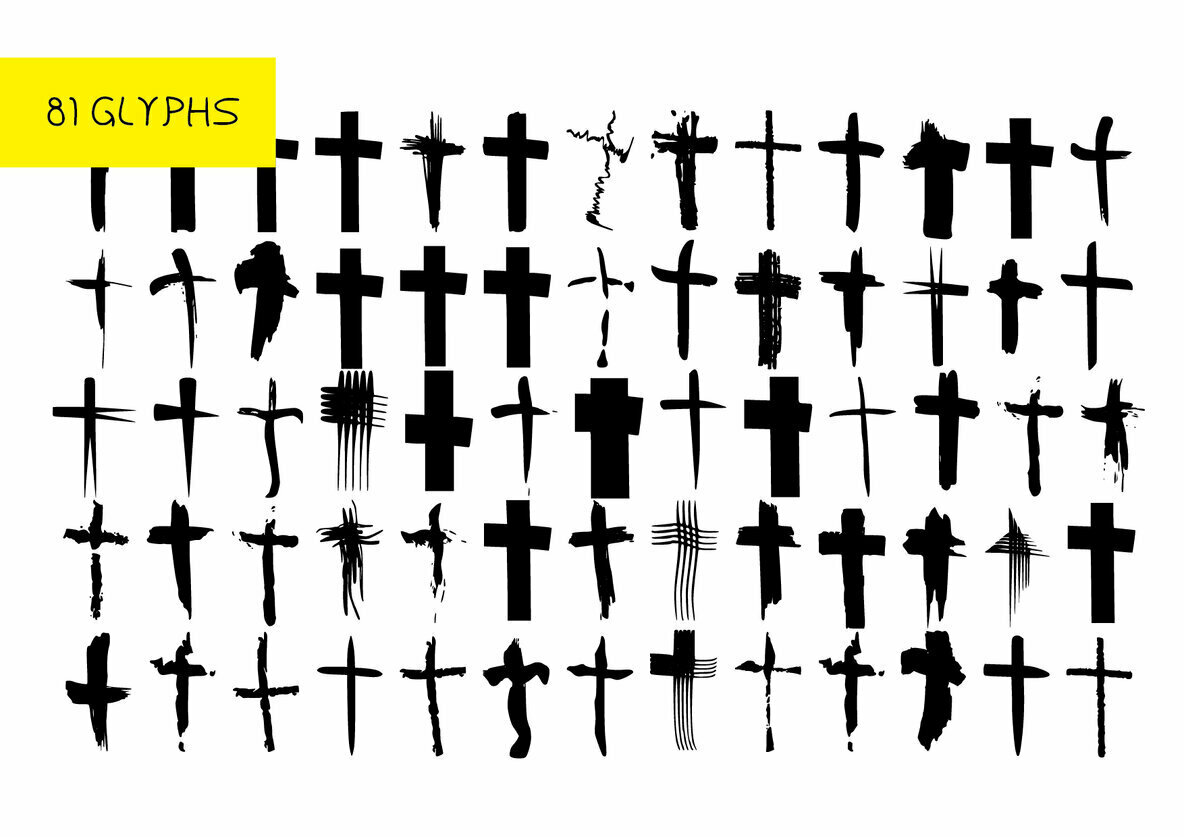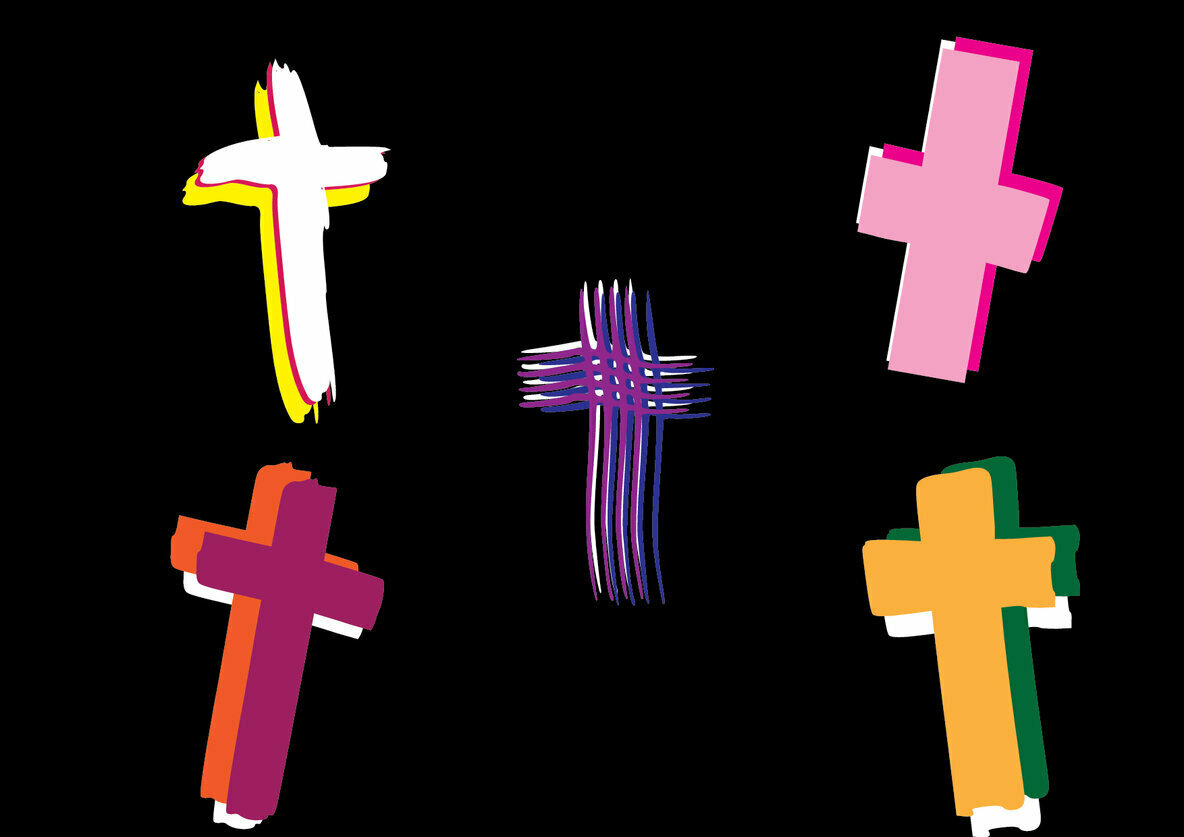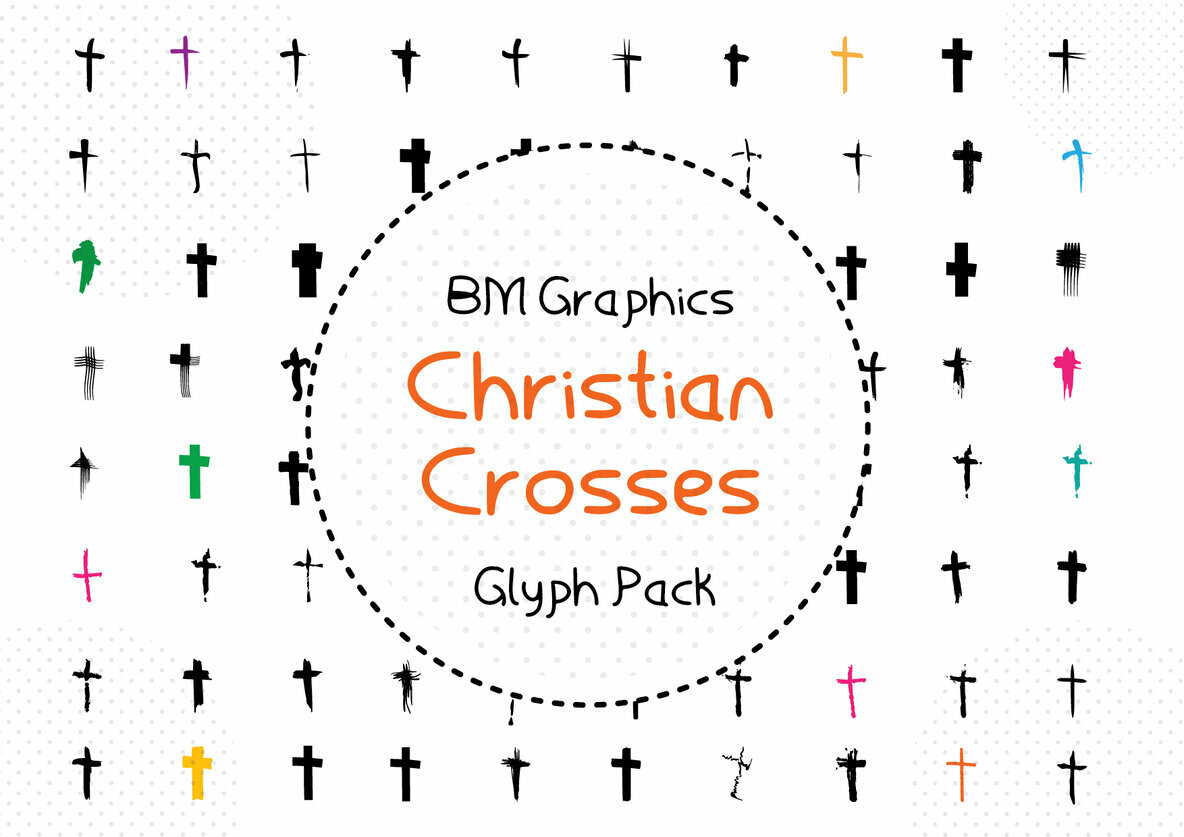
BM Graphics - Christian Cross Font
BM Graphics Christian Cross
BM Graphics - Christian Cross is a stunning dingbats font that combines 81 Glyphs. Use it for any design project that requires a hand drawn look and feel, there are so many to choose from!